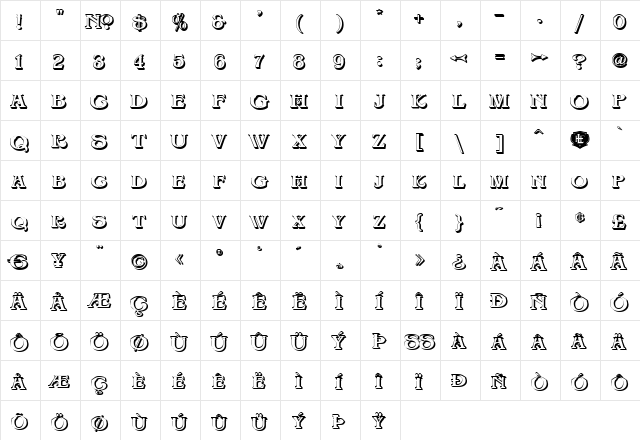
LHF BigTop SHADOW Regular
Design Context for LHF BigTop SHADOW Typeface
LHF BigTop SHADOW is built around its visual character rather than neutral utility — its distinctive forms are designed to make an impression at display sizes.
Font Pairing: Pair with a clean neutral sans-serif for body copy to let LHF BigTop SHADOW's character lead without overwhelming the composition.
Pro Tip: Treat LHF BigTop SHADOW as the centrepiece of your typographic hierarchy. One strong heading set in a decorative face can carry an entire layout.